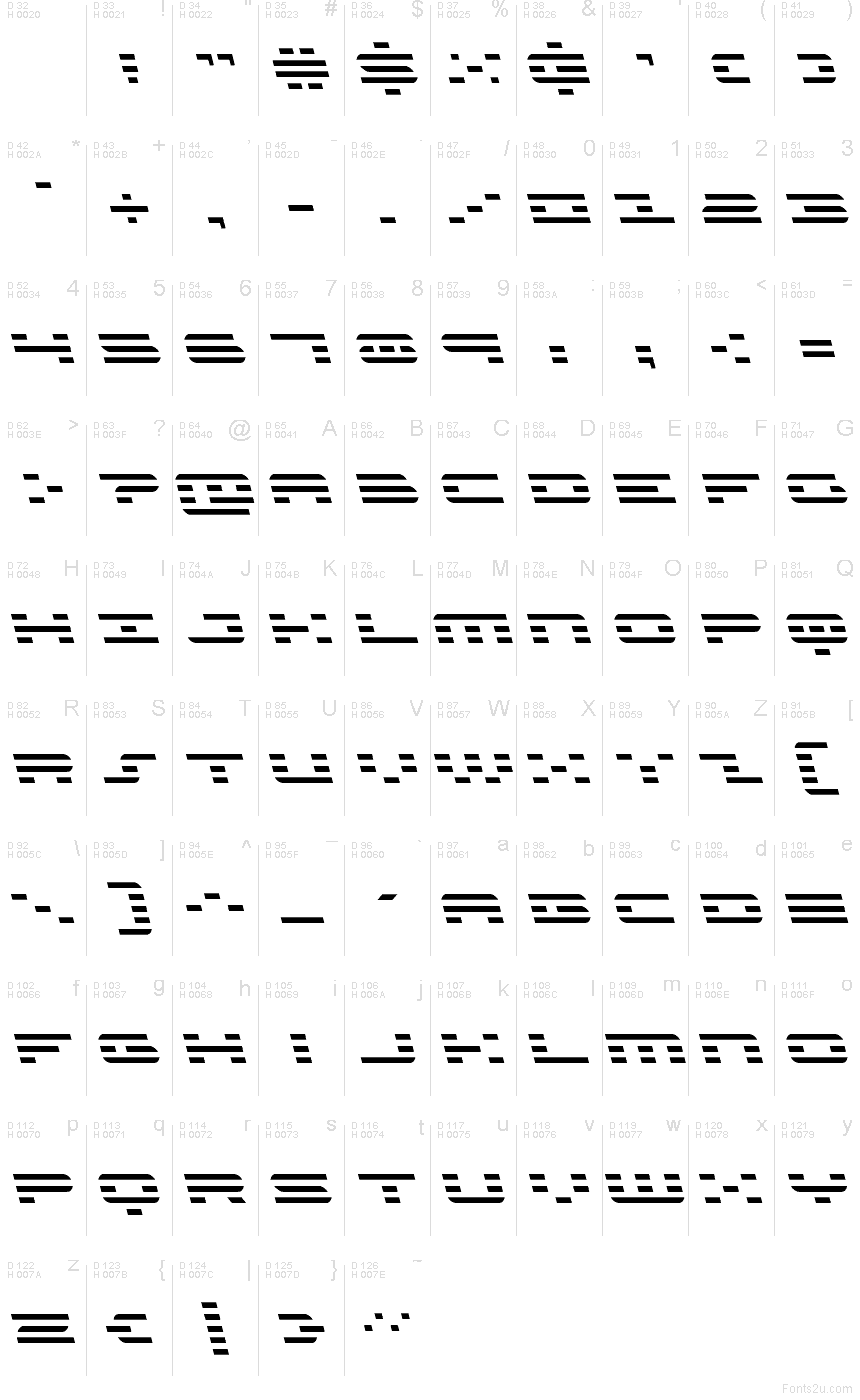
Nova Terra Leftalic
Nova Terra Leftalic font by Iconian Fonts is a free futuristic display typeface that looks like it’s been pulled sideways at light speed. Every letter leans sharply to the left, sliced into bold horizontal bands that feel like motion blur frozen in place. The tight spacing and blocky geometry give it a heavy, mechanical presence, while the staggered cuts add a restless, almost glitchy energy that grabs attention instantly.
Using Nova Terra Leftalic, you get a ready-made logo engine for sci-fi games, esports teams, tech event branding, racing graphics, and cyberpunk posters. This free font thrives in oversized titles, HUD-style interfaces, and animated intros where its angled forms can streak across the screen. For body copy, pair it with a clean geometric sans in a neutral weight, and let Nova Terra carry the loud, high-impact headlines.